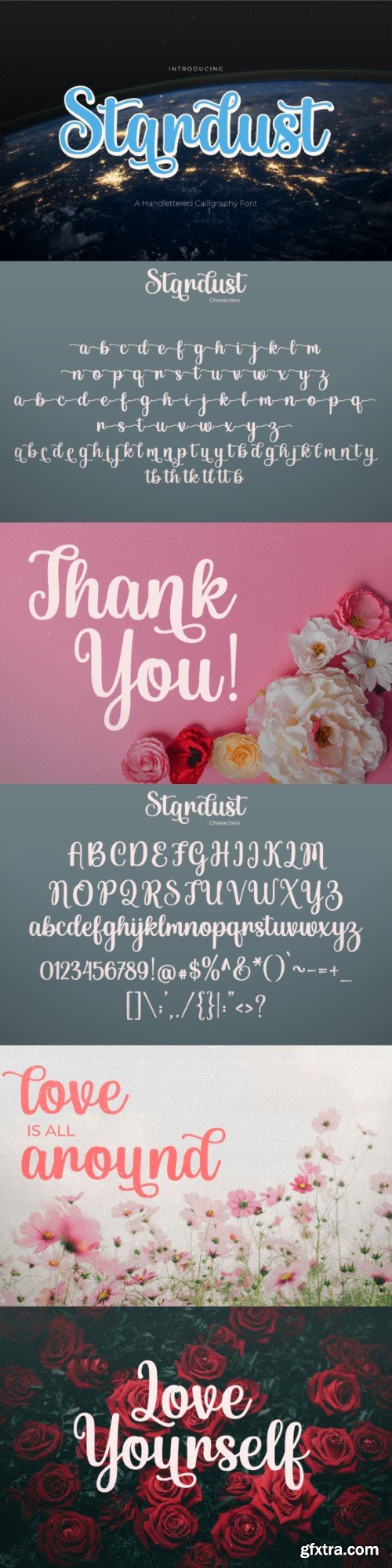
Stardust 字体
Introducing Stardust, a modern calligraphy font that transcends traditional boundaries, infusing your projects with an enchanting and contemporary elegance. Boasting a generous repertoire of 314 characters, Stardust is a versatile typeface that adds a touch of sophistication to your creative endeavors.